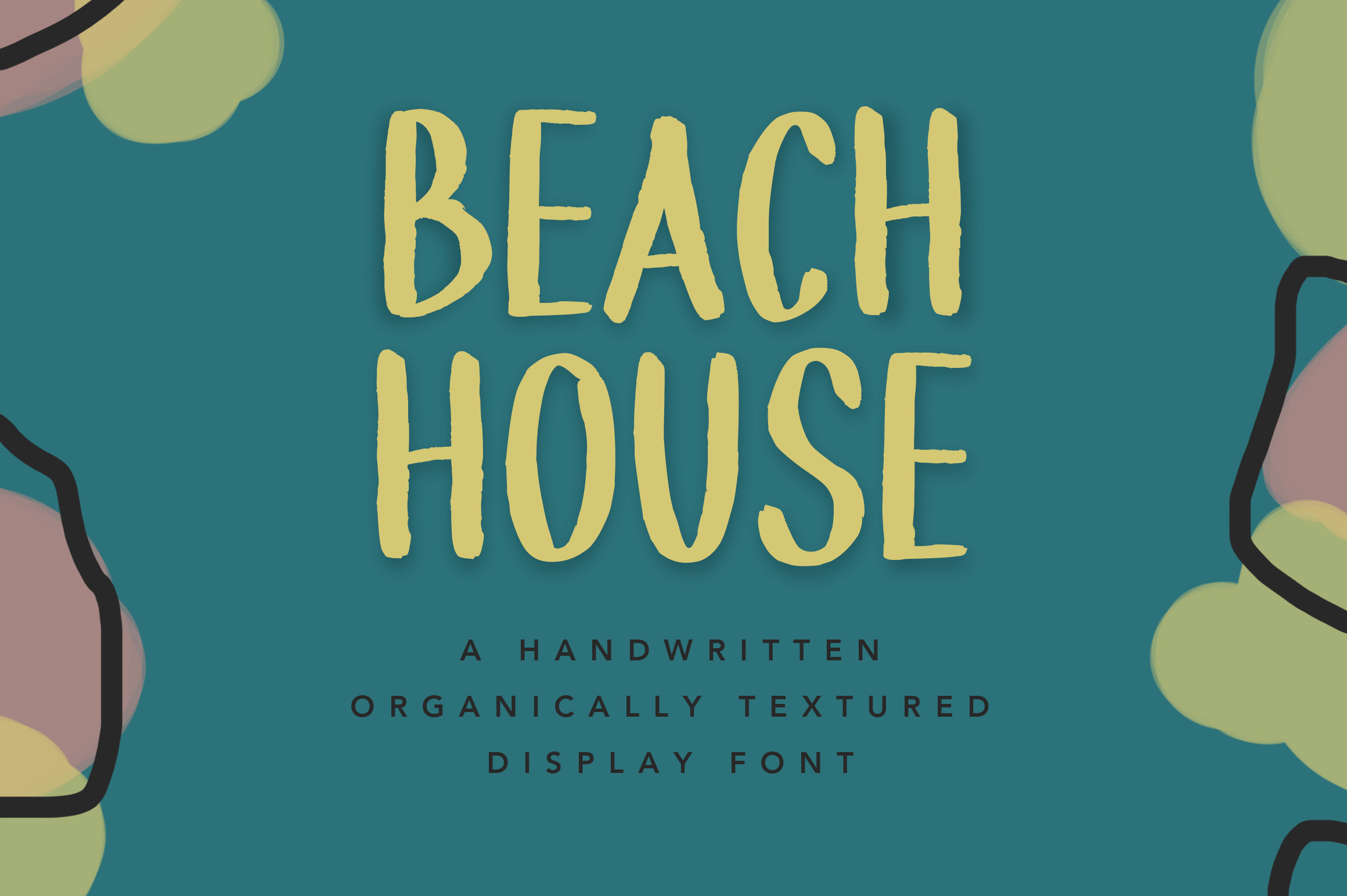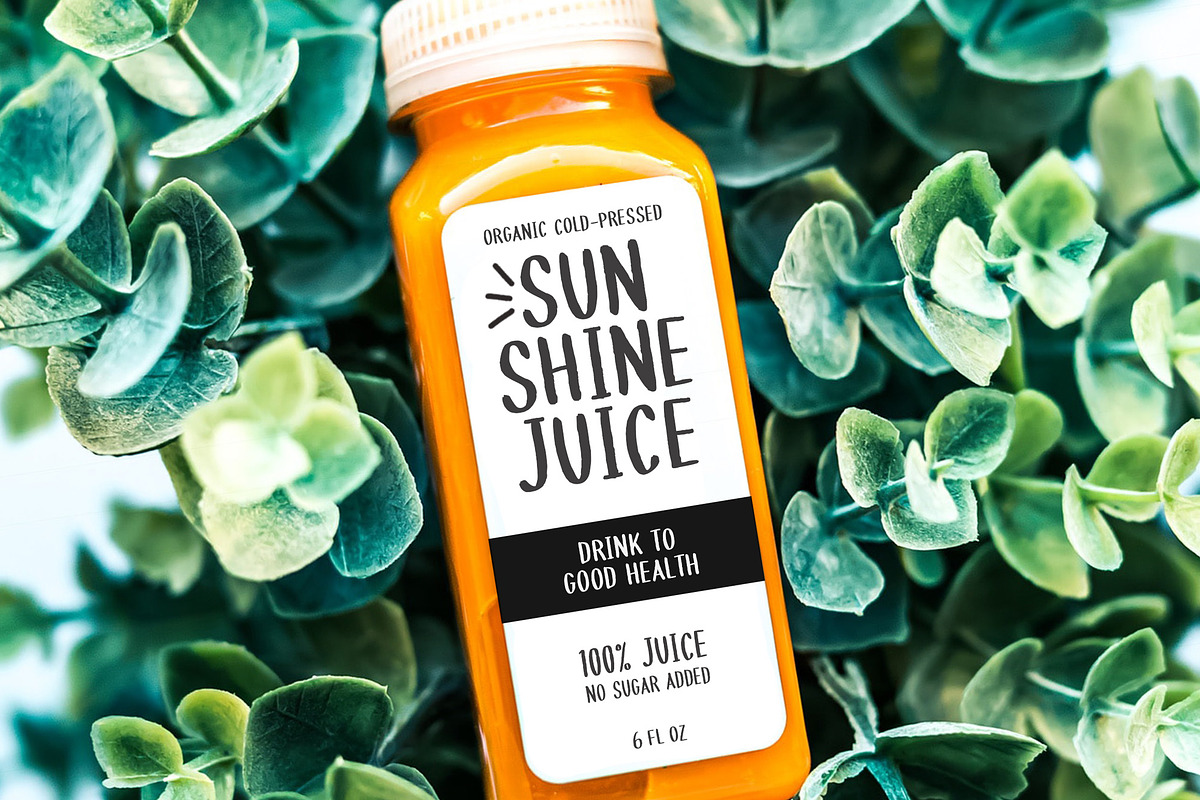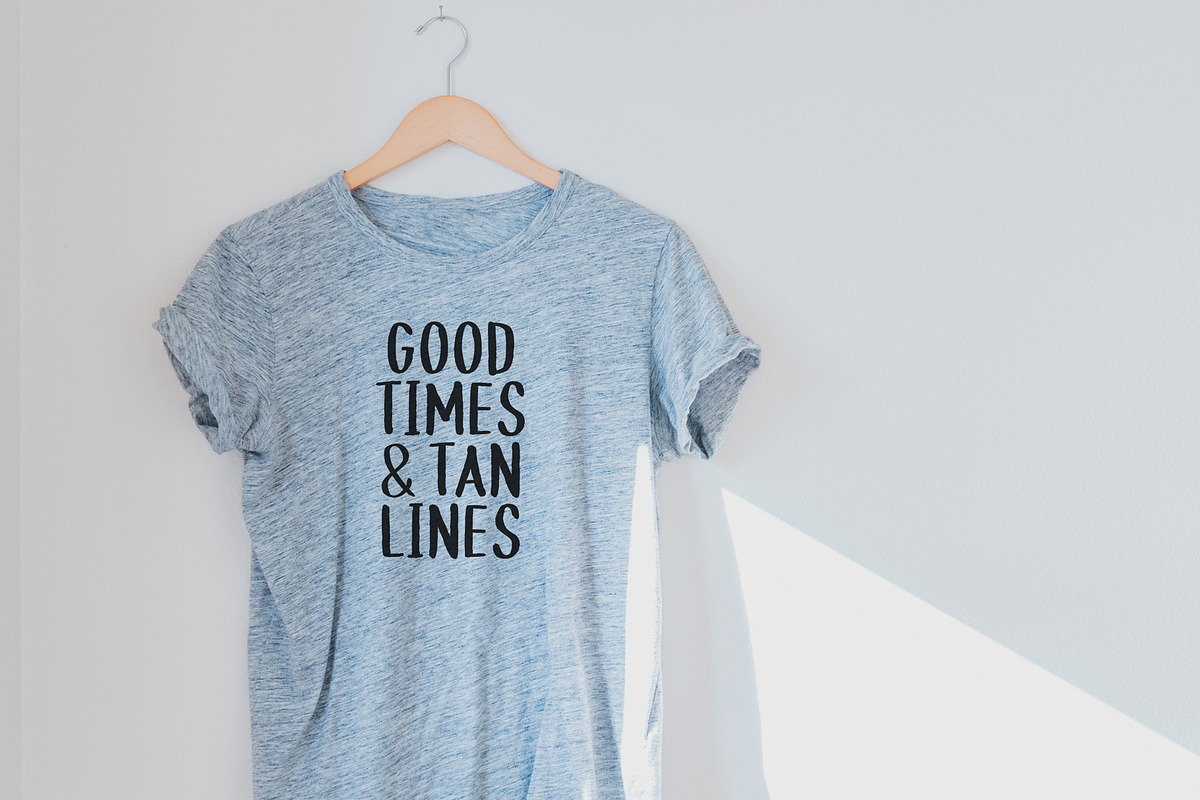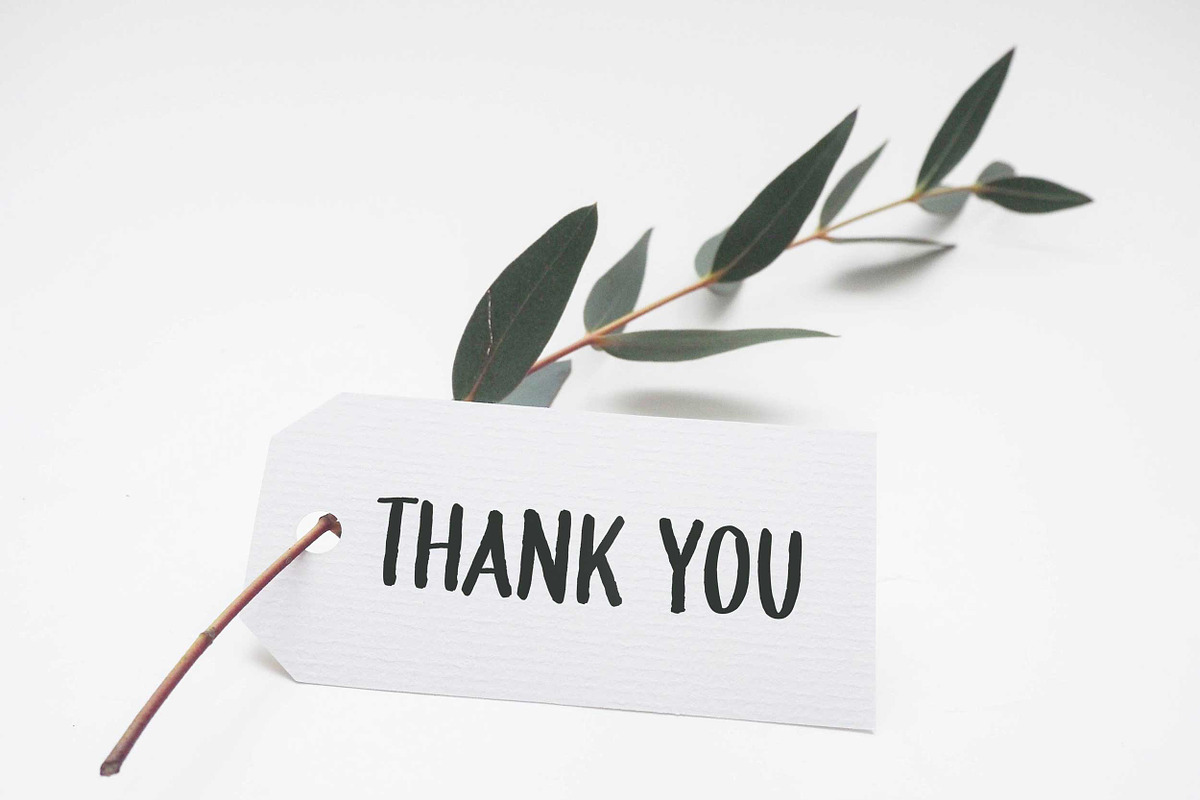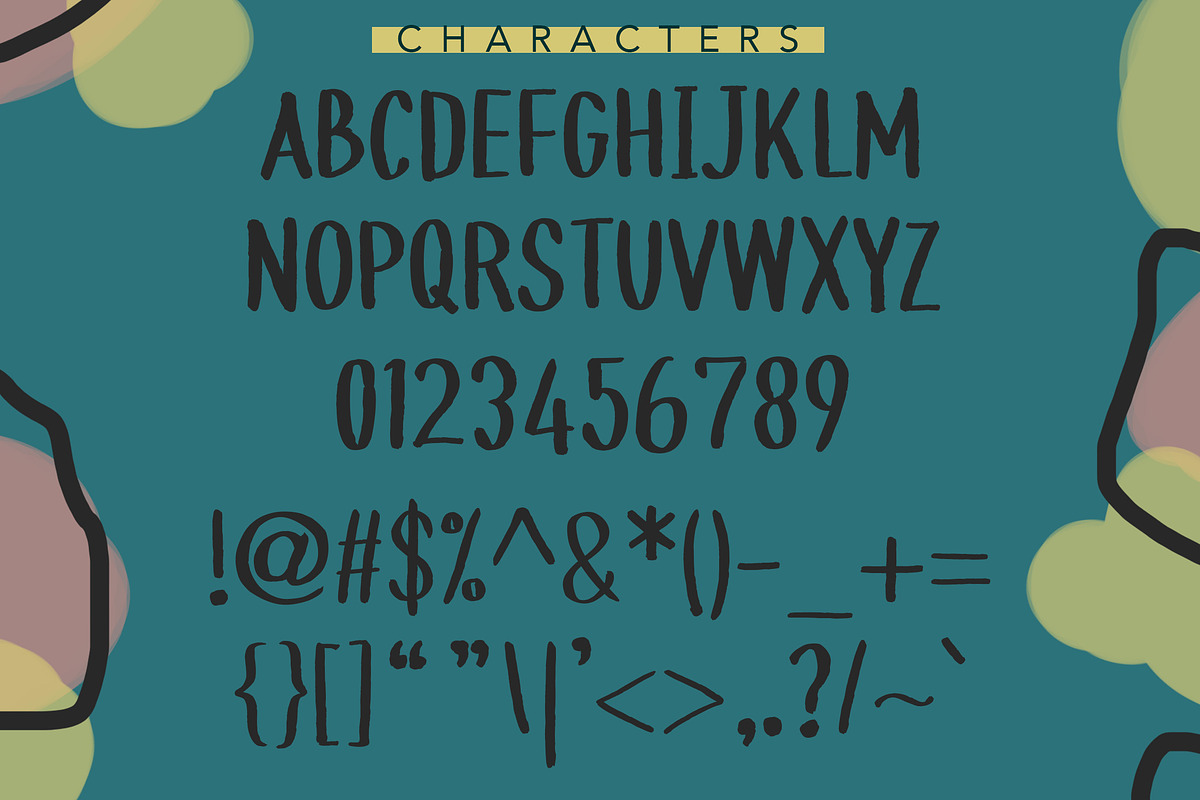
Beach House Hand-Lettered Font
BEACH HOUSE FONT is a fun, hand-lettered font with a laid-back personality. Use it in logos, t-shirts, craft projects, posters, magazines, social media, and more!
This font includes capital and lowercase glyphs, but they are all the same. So whether you type in all-caps or lowercase you will always get an uppercase letter. All numbers and some symbols are included.